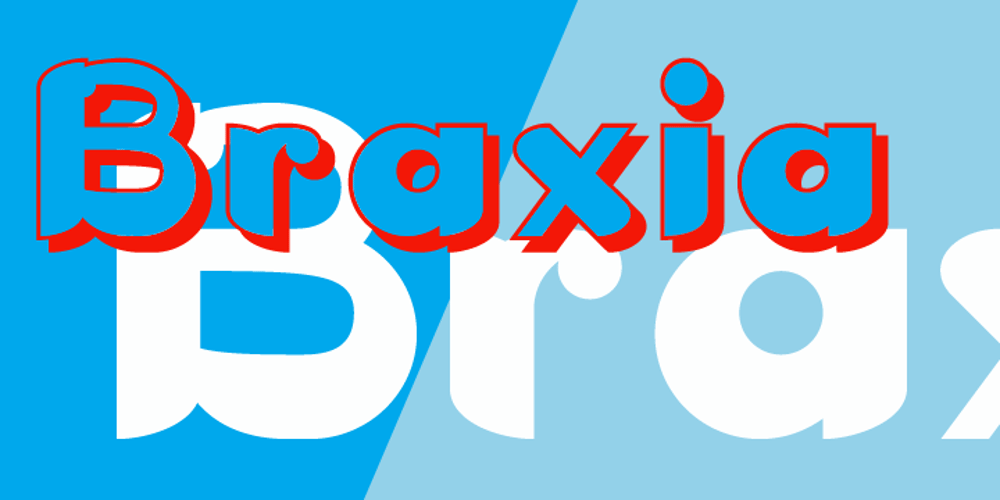
Braxia
Braxia font
Braxia Font Family was designed by published by Greater Albion Typefounders. Braxia contains 2 styles and family package options. Braxia is a pure and joyful piece of Art Deco Fun. It is a new face that is overflowing with the character of 1930s advertising, lively and yet with impact all at once, its idea for theater handbills and posters, parties or anything else where you want to encourage people to enjoy themselves. Braxia is offered in two faces, regular and embossed, and is a face to really have fun with!